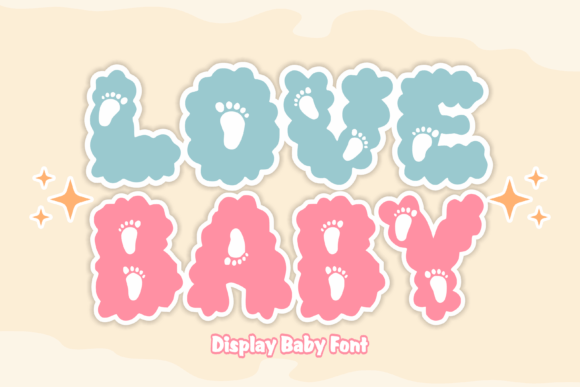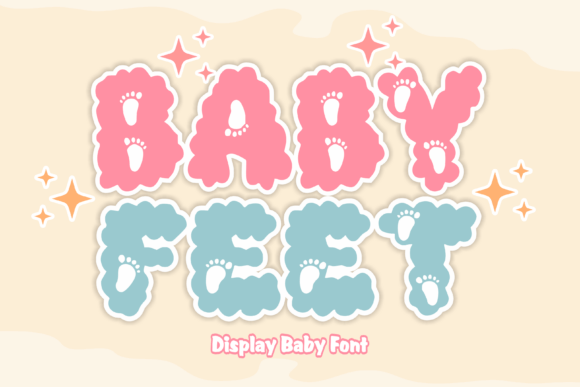
Baby Dreams Font: The Ultimate Choice for Creative and Charming Designs
Are you a designer, crafter, or DIY enthusiast looking for a font that can add a touch of whimsy and charm to your creative projects? Look no further than Baby Dreams Font! This irresistibly charming and endearing font is perfect for bringing your creative visions to life, whether you’re crafting delightful children’s birthday decorations, designing whimsical art pieces, creating captivating social media content, or adding a charming flair to advertising campaigns.
What Makes Baby Dreams Font So Special?
Baby Dreams Font is a versatile and flexible font that can be used in a wide range of creative applications. Its adorable aesthetic is sure to capture the hearts of your audience, making it perfect for projects that require a touch of sweetness and innocence. Whether you’re creating designs for kids or adults, Baby Dreams Font is sure to bring a smile to their faces.
Key Features of Baby Dreams Font
- Charming and endearing design: Baby Dreams Font features a unique and captivating design that is sure to charm your audience.
- Flexible style: This font can be used in a variety of creative applications, from children’s birthday decorations to social media content.
- Adorable aesthetic: Baby Dreams Font adds a touch of sweetness and innocence to any design, making it perfect for projects that require a whimsical touch.
- Easy to read: Despite its playful design, Baby Dreams Font is easy to read, making it perfect for use in a variety of contexts.
Creative Applications of Baby Dreams Font
Baby Dreams Font is a versatile font that can be used in a wide range of creative applications, including:
- Children’s birthday decorations: Add a touch of whimsy and charm to children’s birthday decorations, such as party invitations, banners, and gift tags.
- Whimsical art pieces: Use Baby Dreams Font to create whimsical art pieces, such as illustrations, paintings, and collages.
- Social media content: Add a charming flair to your social media content, such as Instagram posts, Facebook updates, and Twitter tweets.
- Advertising campaigns: Use Baby Dreams Font to add a touch of sweetness and innocence to your advertising campaigns, making them more appealing to your target audience.
- Crafting projects: Baby Dreams Font is perfect for use in crafting projects, such as scrapbooking, card making, and DIY jewelry making.
Tips for Using Baby Dreams Font
Here are some tips for using Baby Dreams Font in your creative projects:
- Use it in combination with other fonts: Baby Dreams Font pairs well with other fonts, so feel free to experiment with different font combinations to create unique and interesting designs.
- Experiment with different colors: Baby Dreams Font looks great in a variety of colors, so don’t be afraid to experiment with different color schemes to find the one that works best for your project.
- Use it to add a personal touch: Baby Dreams Font is perfect for adding a personal touch to your designs, making them more special and meaningful.
In conclusion, Baby Dreams Font is a versatile and charming font that is perfect for designers, crafters, and DIY enthusiasts looking to add a touch of whimsy and charm to their creative projects. With its adorable aesthetic, flexible style, and ease of use, Baby Dreams Font is sure to bring your creative visions to life! So why wait? Download Baby Dreams Font today and start creating your own charming and endearing designs!